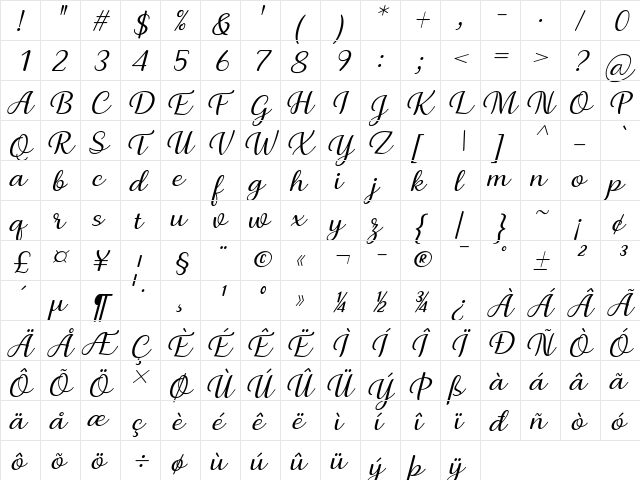
Briany Italic
Design Context for Briany Typeface
Briany is a composed and adaptable typeface that performs quietly and consistently across a wide range of design contexts. The dynamic lean of this cut emphasises speed and emphasis in any layout.
Pro Tip: Try Briany for annotation and caption copy alongside an upright companion — the contrast in angle creates a dynamic but ordered typographic system.